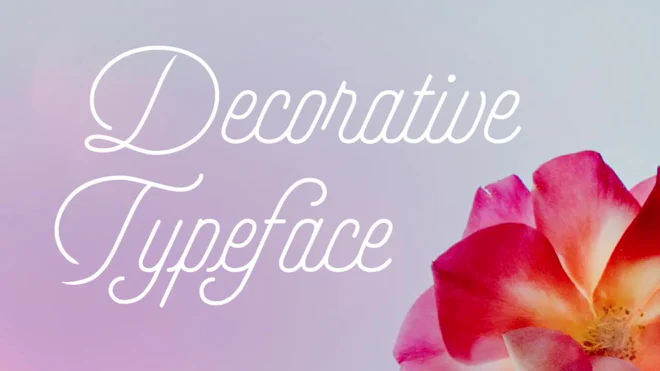
This stock motion graphics video pack includes 70 items of animated hand-written font on a transparent alpha channel. It contains the entire English alphabet, 8 special characters, and 10 numbers.